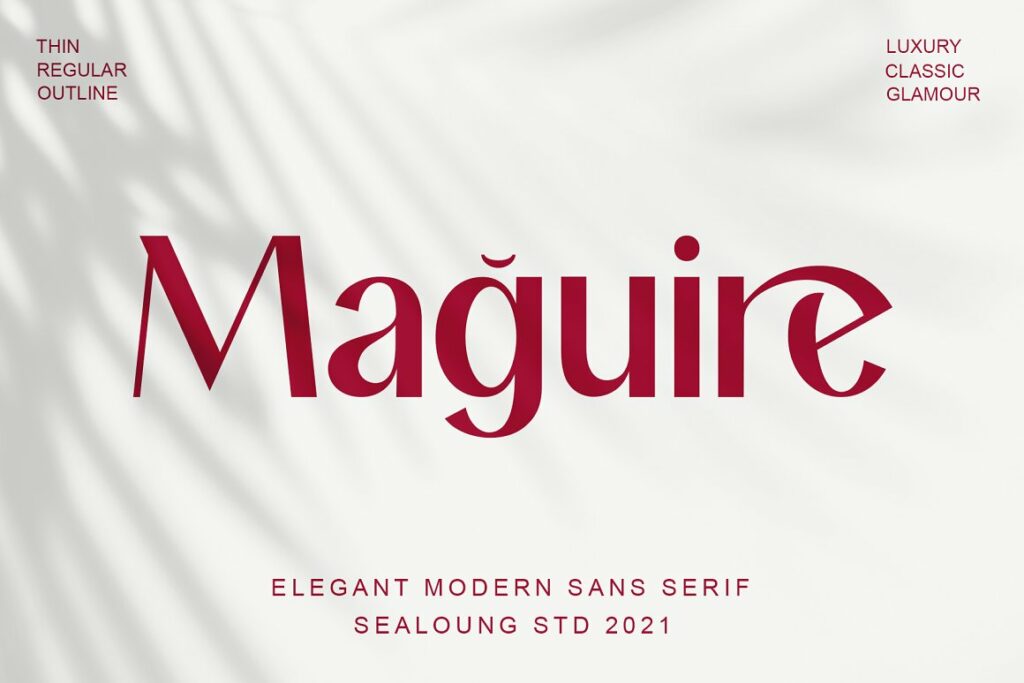
Maguire Font
Maguire Font is a minimalist modern elegant sans serif type with beautiful ligatures, tons of special alternative glyphs and multilingual support. It’s a very versatile font that works great in large and small sizes.
Maguire is perfect for branding projects, Logo design, Clothing Branding, product packaging, magazine headers, or simply as a stylish text overlay to any background image.
Maguire Sans Serif Font